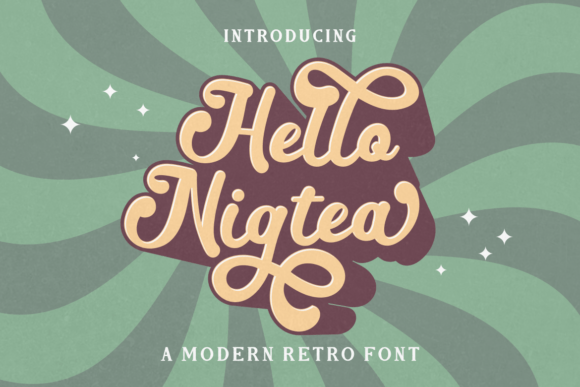
Unleash the Nostalgia with Hello Nigtea Font
Have you ever stared at an old family photo album, reminiscing about the past, and wished you could transport that same charm into your modern designs? You’re not alone. Designers often find themselves seeking ways to infuse their projects with a touch of nostalgia, without sacrificing the sleekness of contemporary style.
That’s where the Hello Nigtea Font comes in – a modern retro font that expertly blends bold lines, unique curves, and vintage charm. With its trendy twist on classic lettering styles, Hello Nigtea Font is the perfect addition to any designer’s toolkit. Whether you’re working on a branding project, a digital magazine, or a website, this font is sure to add a delightful, nostalgic touch.
As a PUA encoded font, Hello Nigtea Font makes it easy to access all its delightful glyphs and swashes, giving you endless creative possibilities. Say hello to the perfect blend of old and new with the Hello Nigtea Font.
- Unique Characteristics: This font features a unique blend of modern and traditional elements, making it perfect for creating eye-catching and memorable designs.
Hello Nigtea Font Review
Overall, I was intrigued by the Hello Nigtea Font, but it left me with mixed feelings. ✨ Here are some of its strengths and weaknesses.
- ✨ Unique design: The font has an interesting and distinctive style that can add character to your designs.
- ✨ Playful vibe: The font’s whimsical feel makes it perfect for projects that require a lighthearted and approachable tone.
- ✨ Good legibility: Despite its unusual design, the font remains relatively easy to read, even at smaller sizes.
- ⚠️ Limited versatility: The font’s playful style may not be suitable for all types of projects, particularly those requiring a more professional or formal tone.
- ⚠️ Lack of consistency: The font’s irregular design can make it difficult to use in long blocks of text, where consistency is key.
- ⚠️ Limited character set: The font’s character set is relatively limited, which may make it less practical for certain types of projects.
Overall, the Hello Nigtea Font is a fun and quirky addition to any designer’s toolkit. While it may not be suitable for all projects, it can add a unique touch to designs that require a lighthearted or playful feel.